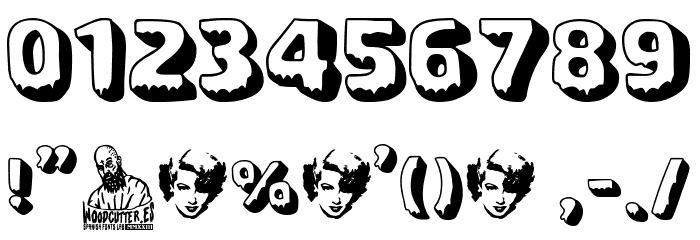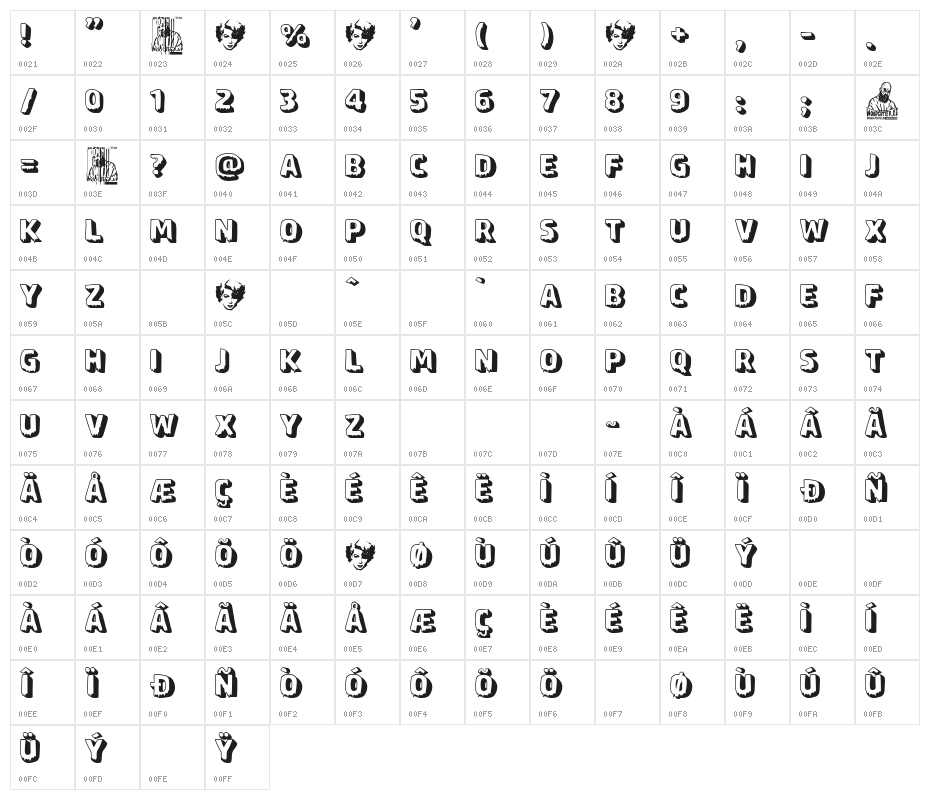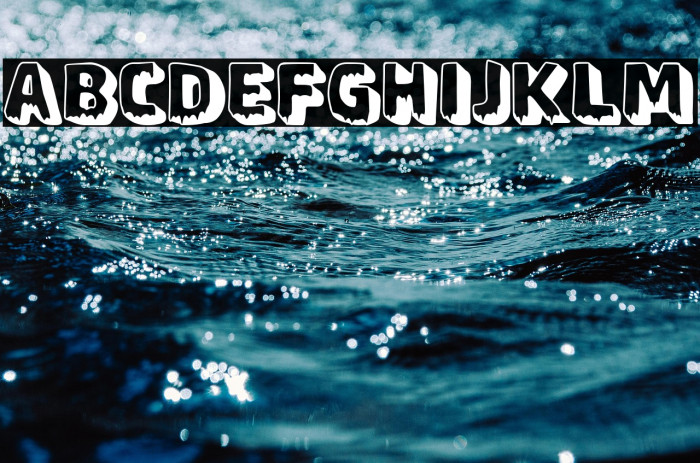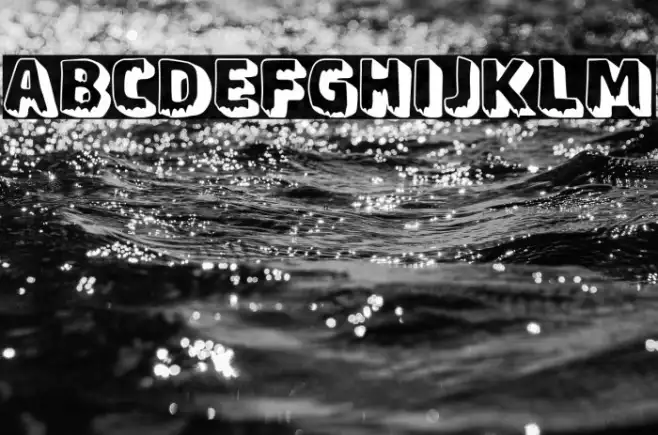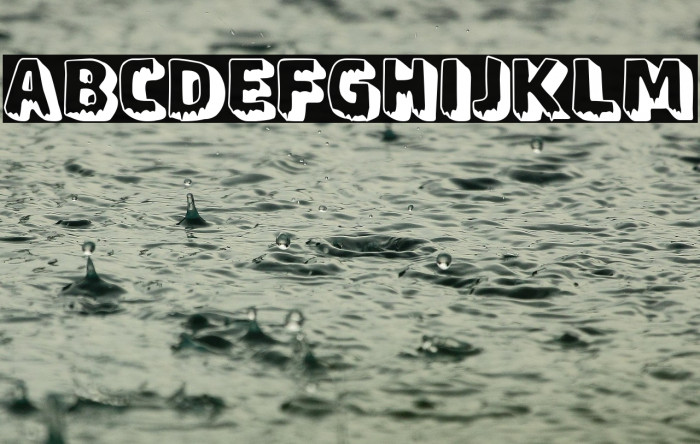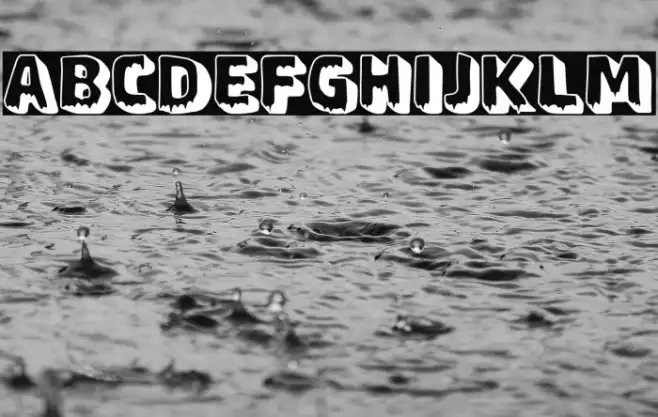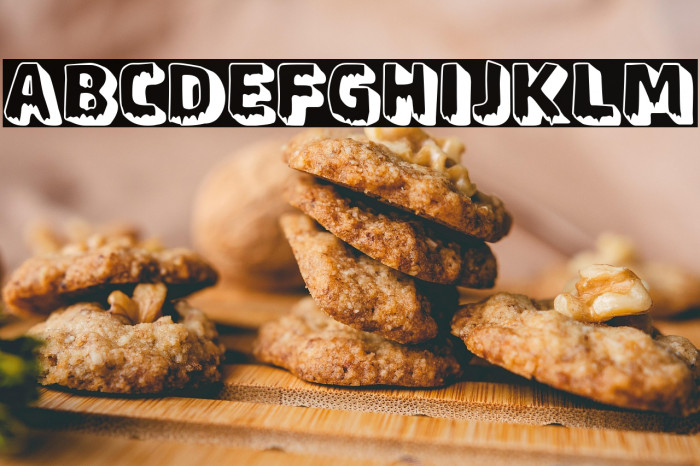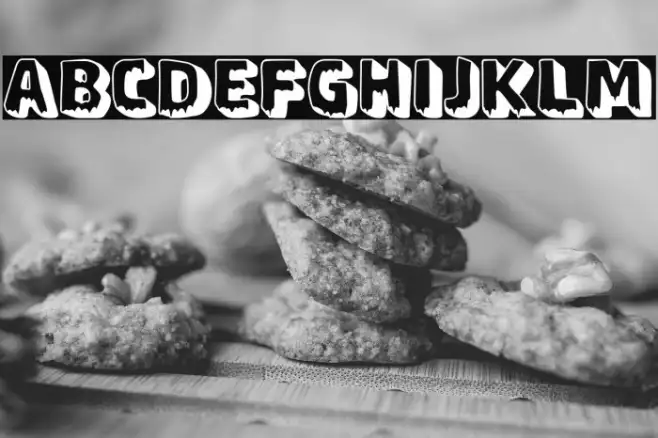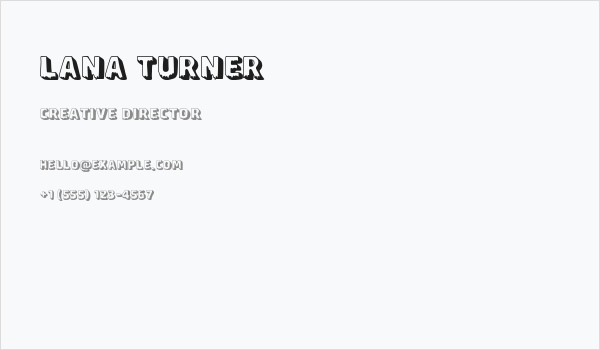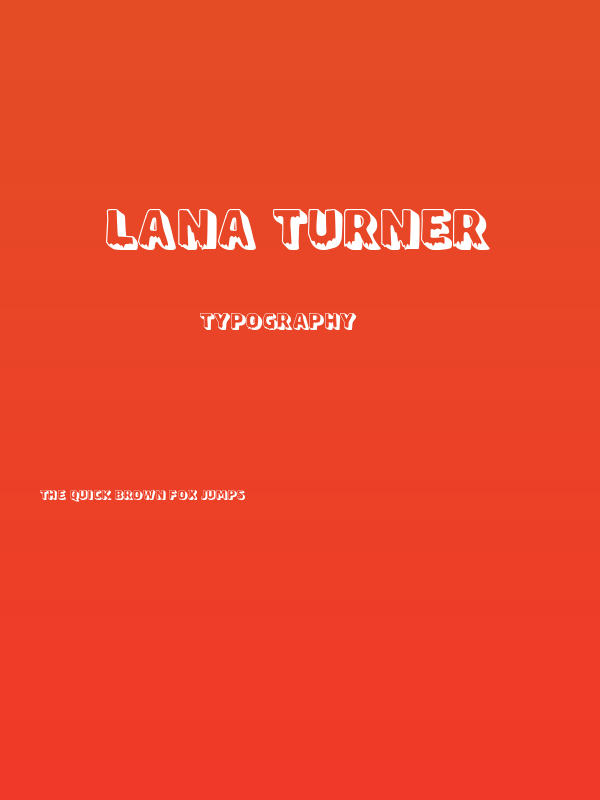
Lana Turner Font
Lana Turner Description
This font features a bold, playful design with a dripping effect that gives it a unique, eye-catching appearance. The characters are thick and rounded, with a shadow effect that adds depth and dimension. The style is reminiscent of a retro or vintage aesthetic, making it ideal for projects that require a fun and dynamic look. The numbers and special characters maintain the same dripping style, ensuring consistency across all text elements.
| Proposed Projects | Ideal for Halloween-themed designs, comic book titles, posters, and playful branding projects. |